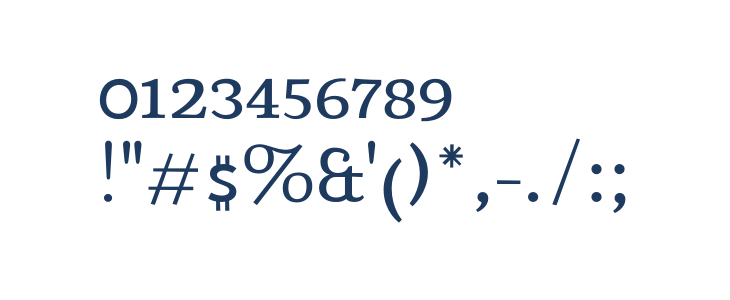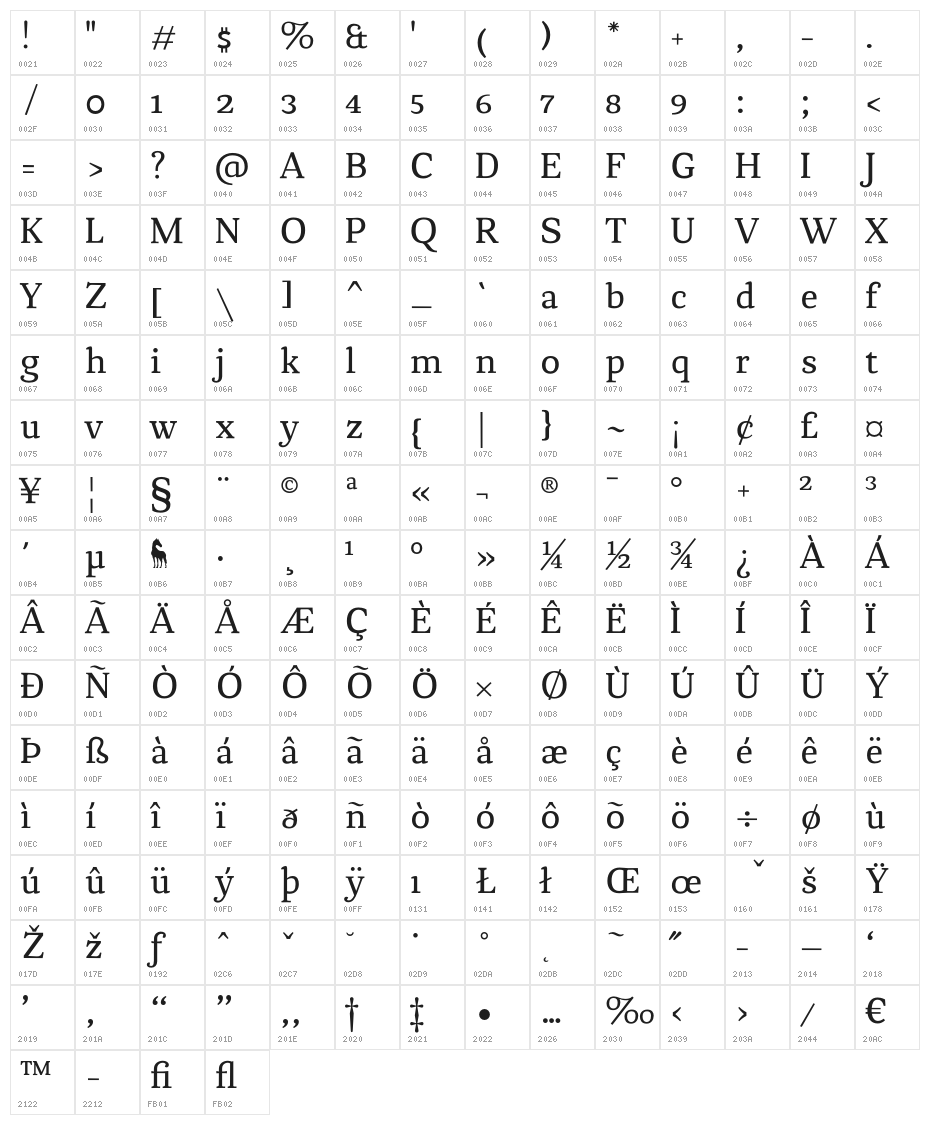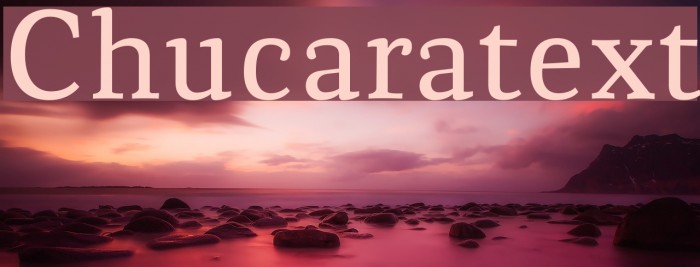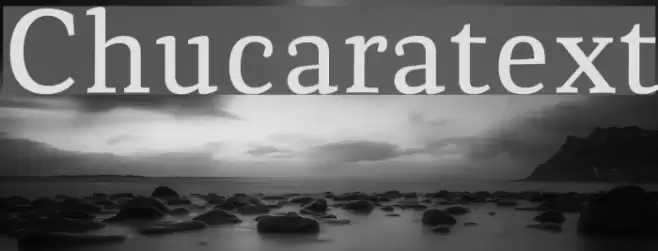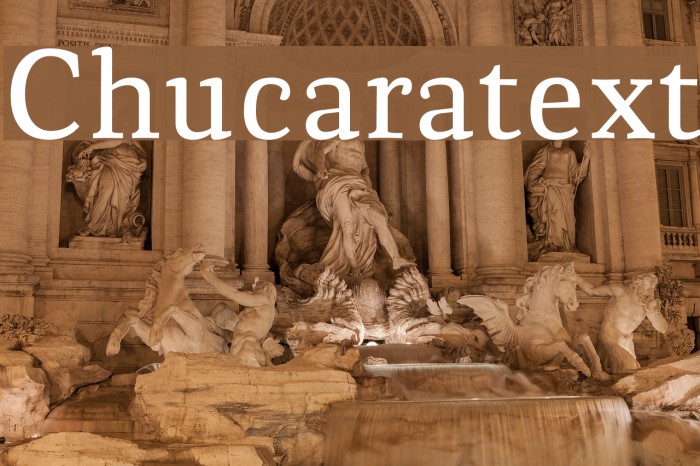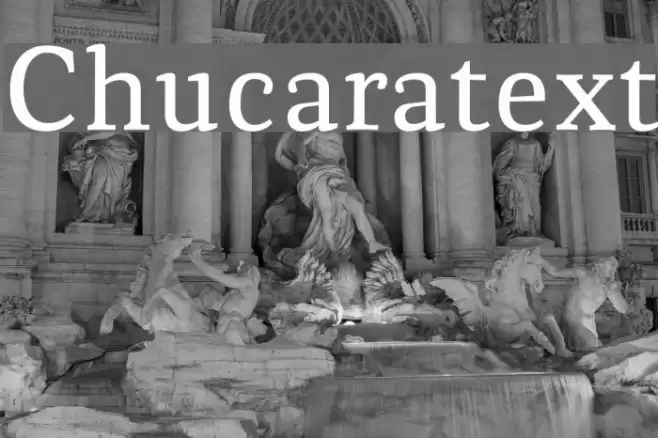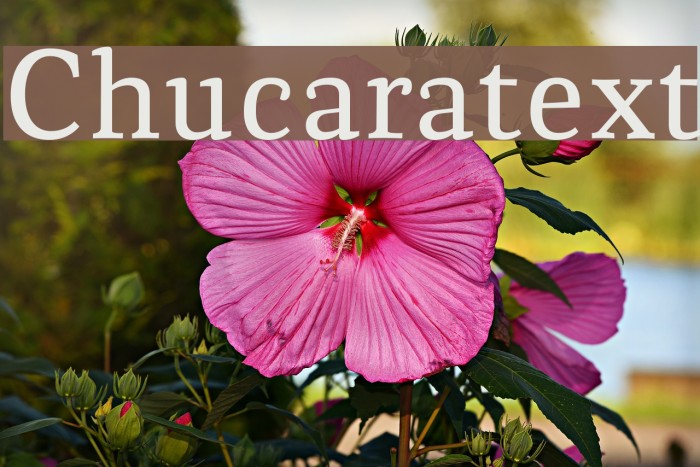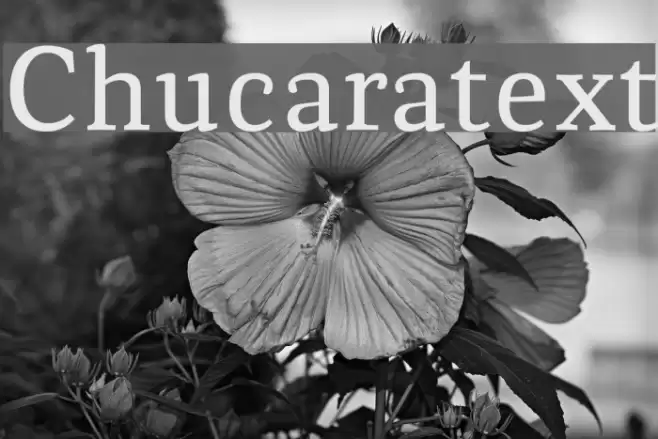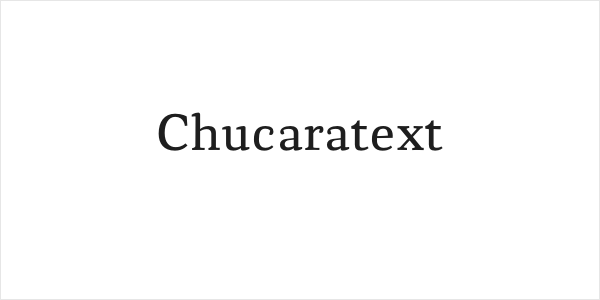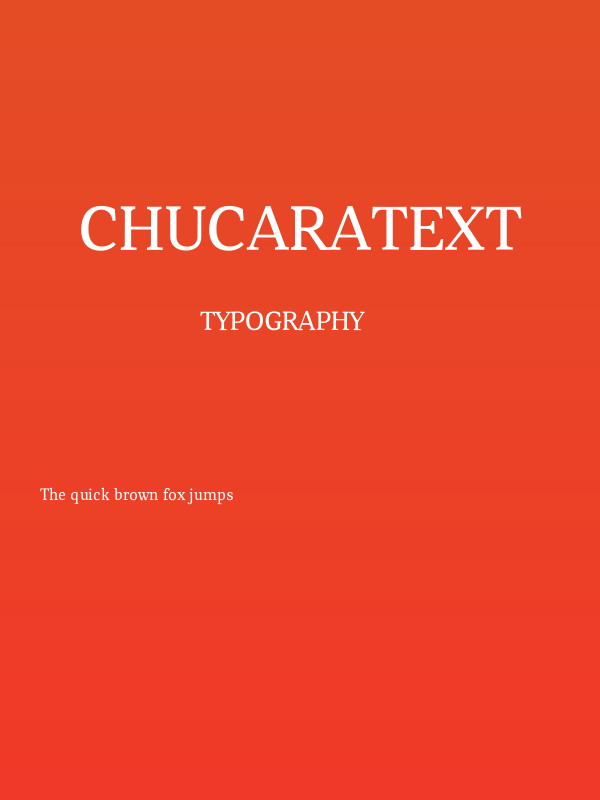
Chucaratext Font
Chucaratext Description
This font features a classic serif style with strong, defined strokes and a traditional appearance. The uppercase letters are bold and commanding, while the lowercase letters maintain a balanced and readable form. The numerals are clear and consistent, making them suitable for various applications. Special characters are elegantly designed, maintaining the overall aesthetic. The font's structure is well-suited for formal and professional settings, offering a timeless appeal that enhances readability and visual impact.
| Proposed Projects | Ideal for editorial design, book covers, formal invitations, and corporate branding. |